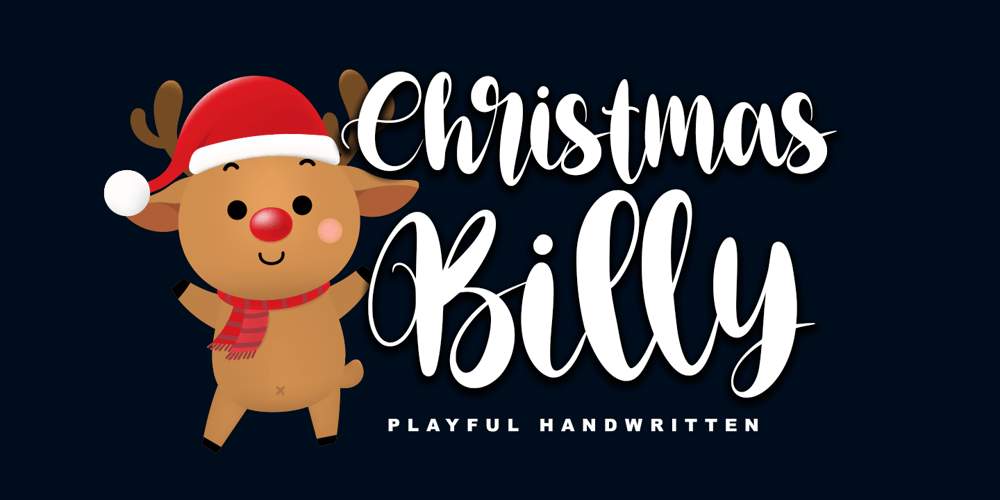
Christmas Billy Font Family was designed by Thomas Aradea and published by Letterara. Christmas Billy contains 2 styles and family package options. Christmas Billy is one unique and creative font. Its beautiful charm makes it look absolutely stunning, easy to read, and, ultimately, incredibly versatile. This will add a fun and friendly touch to any of your projects, especially for the Christmas theme! This font is PUA encoded which means you can access all the glyphs easily. Fall in love with its incredibly versatile style and use it to create spectacular designs!